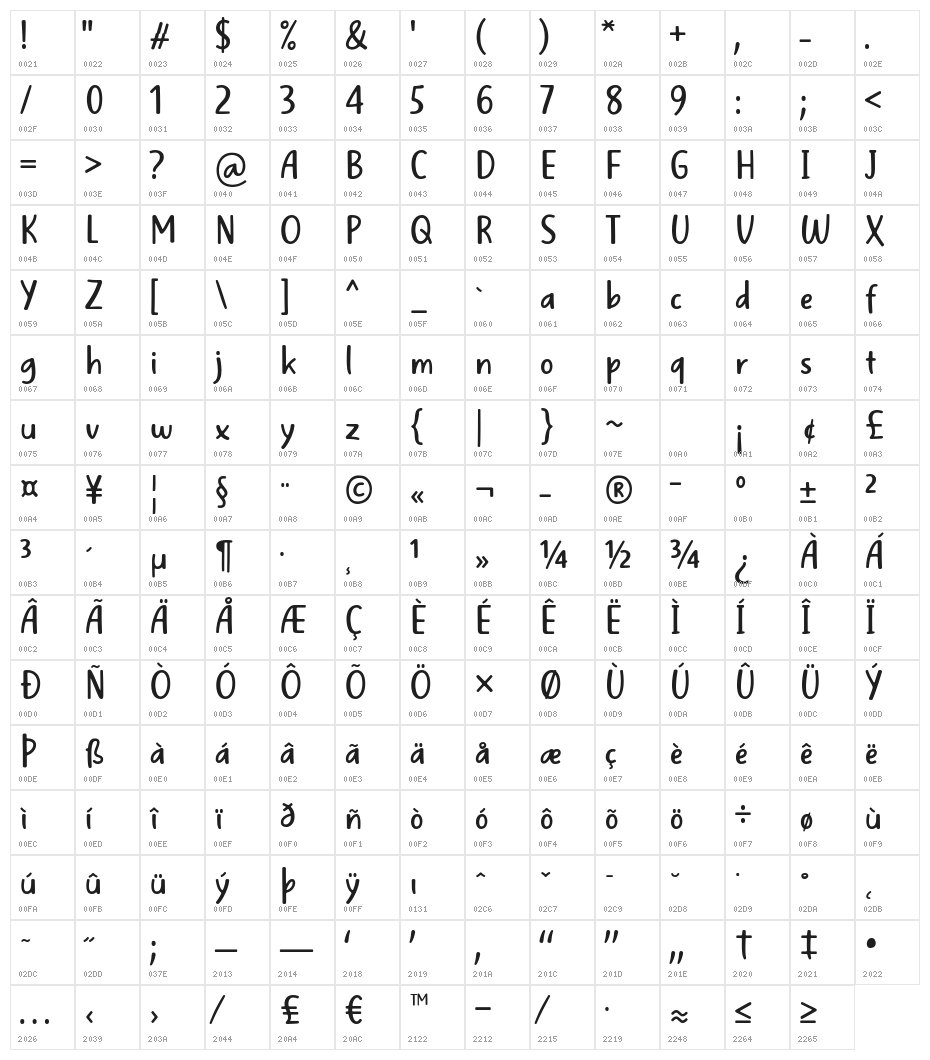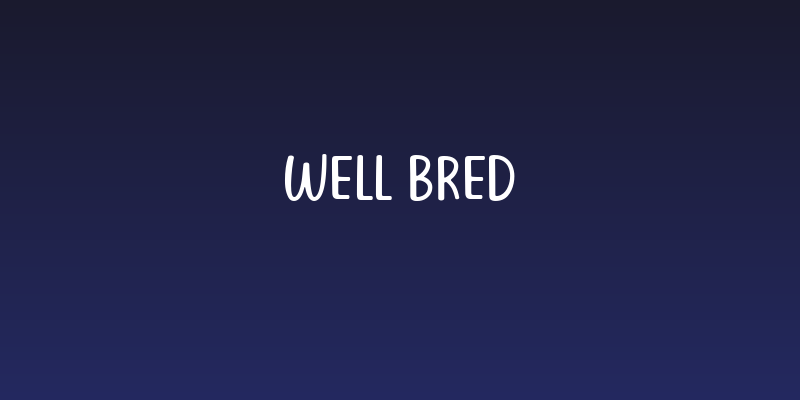
Well Bred Font
Well Bred Description
This font features a playful and casual handwritten style, characterized by its rounded edges and slightly uneven strokes that give it a friendly and approachable appearance. The uppercase letters are bold and slightly condensed, while the lowercase letters maintain a consistent flow with a more relaxed spacing. Numbers and special characters are designed to match the overall whimsical aesthetic, making them easy to read while maintaining the font's unique charm. The font's informal style makes it suitable for projects that aim to convey warmth and creativity.
| Overall Style | Casual, Playful |
| Use Case | Headlines, Informal text, Creative projects |
| Proposed Projects | Ideal for children's books, greeting cards, casual branding, and social media graphics. |